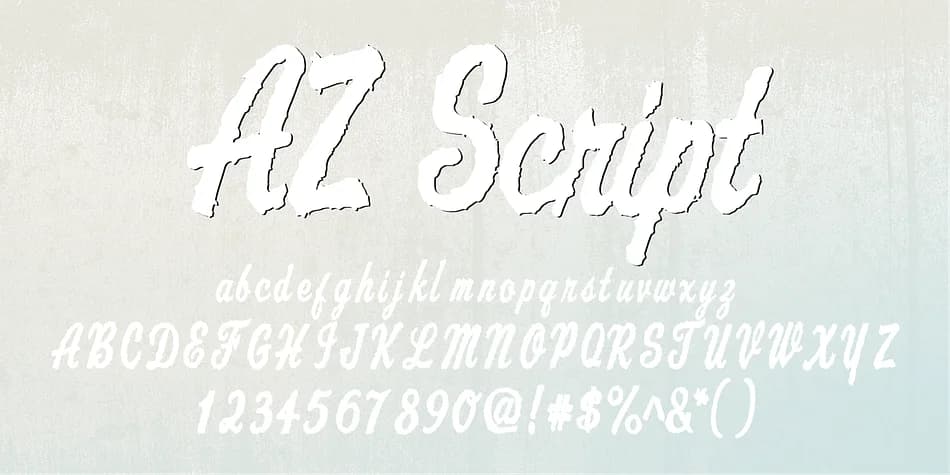
About AZ Script Font
This script carries a gritty, time-worn character that feels like it stepped straight out of a 1970s archive or vintage letterpress shop. AZ Script, designed by Artist of Design, brings that distressed aesthetic to your typography toolkit with bold, weathered letterforms that radiate genuine personality and texture. The worn-in quality isn't something to hide; it's the whole point of using it.
That authentic grittiness makes it ideal for vintage wedding invitation suites, retro concert posters and album artwork, distressed band merchandise designs, and artisan product packaging where machine-made perfection would feel completely wrong. Each letter carries that lived-in feel that resonates with audiences seeking genuine, imperfect warmth rather than sterile polish. You'll find it works particularly well as a headline or display font where its textured character can dominate and lead the eye. The line work anchors the visual hierarchy without needing extra ornamentation or fussy decorative details.
Pair AZ Script with a clean, straightforward sans-serif like Montserrat or Proxima Nova for body text to maintain legibility while letting the script take the spotlight. That contrast keeps the composition readable and gives the vintage aesthetic room to breathe. Find it on Creative Fabrica and bring some genuine distressed character to your next project.
AZ Script Font is a script font that shines as a display or heading face. Pair it with a clean sans-serif or serif font for body text β the contrast creates a clear hierarchy while the two styles stay balanced and easy to read.